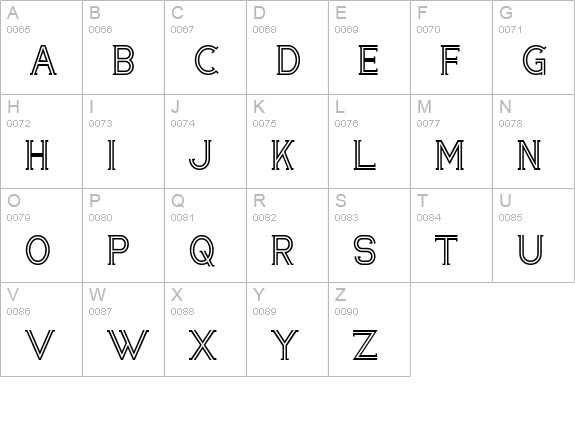
Zebrra Font Details
Introducing the captivating Zebrra font, a modern and stylish typeface that is sure to make a bold statement in any design project. With its unique and eye-catching letterforms, Zebrra effortlessly combines elegance with a touch of playfulness, resulting in a font that is both sophisticated and approachable. This versatile font is perfect for a wide range of applications, from branding and logo design to packaging and editorial layouts. Its clean lines and well-balanced proportions ensure readability at any size, making it ideal for both print and digital media. One of the best features of Zebrra is that it is available for free! That's right, you can easily download this remarkable font at FontsMarket.com, a trusted source for high-quality fonts. By offering it freely, Zebrra empowers designers and creatives to bring their visions to life without any limitations or barriers. Whether you want to add a touch of elegance to your wedding invitations or create a memorable brand identity for your business, Zebrra is the perfect choice. Its versatility and timeless appeal make it suitable for a wide range of design projects, ensuring that your creations will stand out from the crowd. Don't miss out on the opportunity to enhance your designs with the captivating Zebrra font. Download it for free today at FontsMarket.com and unlock a world of endless creative possibilities.